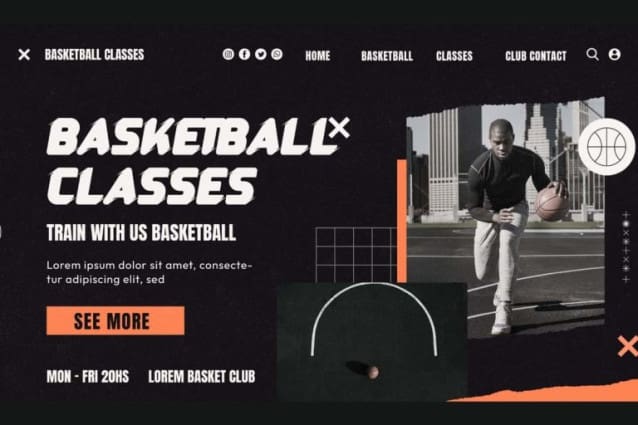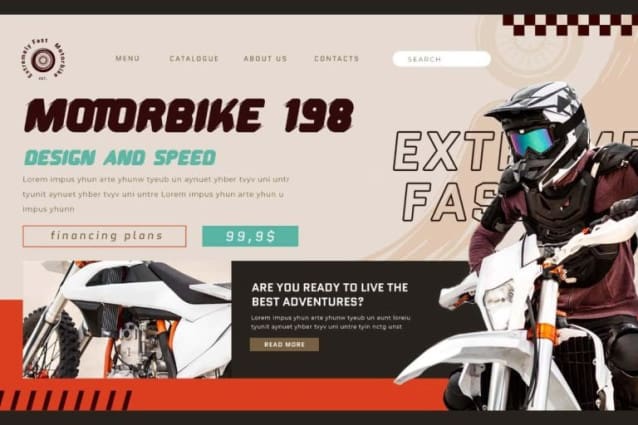
Engine Brake Font
Engine Brake Font is a racing themed font with a strong italic look and consistent sharp angles to maximize the fast and powerful look. This font is functional because it balances geometric precision so it easily adapts to a variety of design contexts. It’s perfect for automotive posters, banner, branding, cards design, covers, headers, logotype racing, packaging product, quote, stationery, sticker, website and other creative design.
Engine Brake Font features bold capital letters to create a standout allowing it to be the centerpiece of the design and convey an explicit message. This display font would be perfect for projects that require a rugged feel. Enhance your artwork with trendy font styles. Engine Brake is ideal for automotive, coffee shop, fitness center, graphic design, handicrafts, printing, publishing, outdoor sports, racing game, sports events, sportswear, vehicle manufacturer etc.